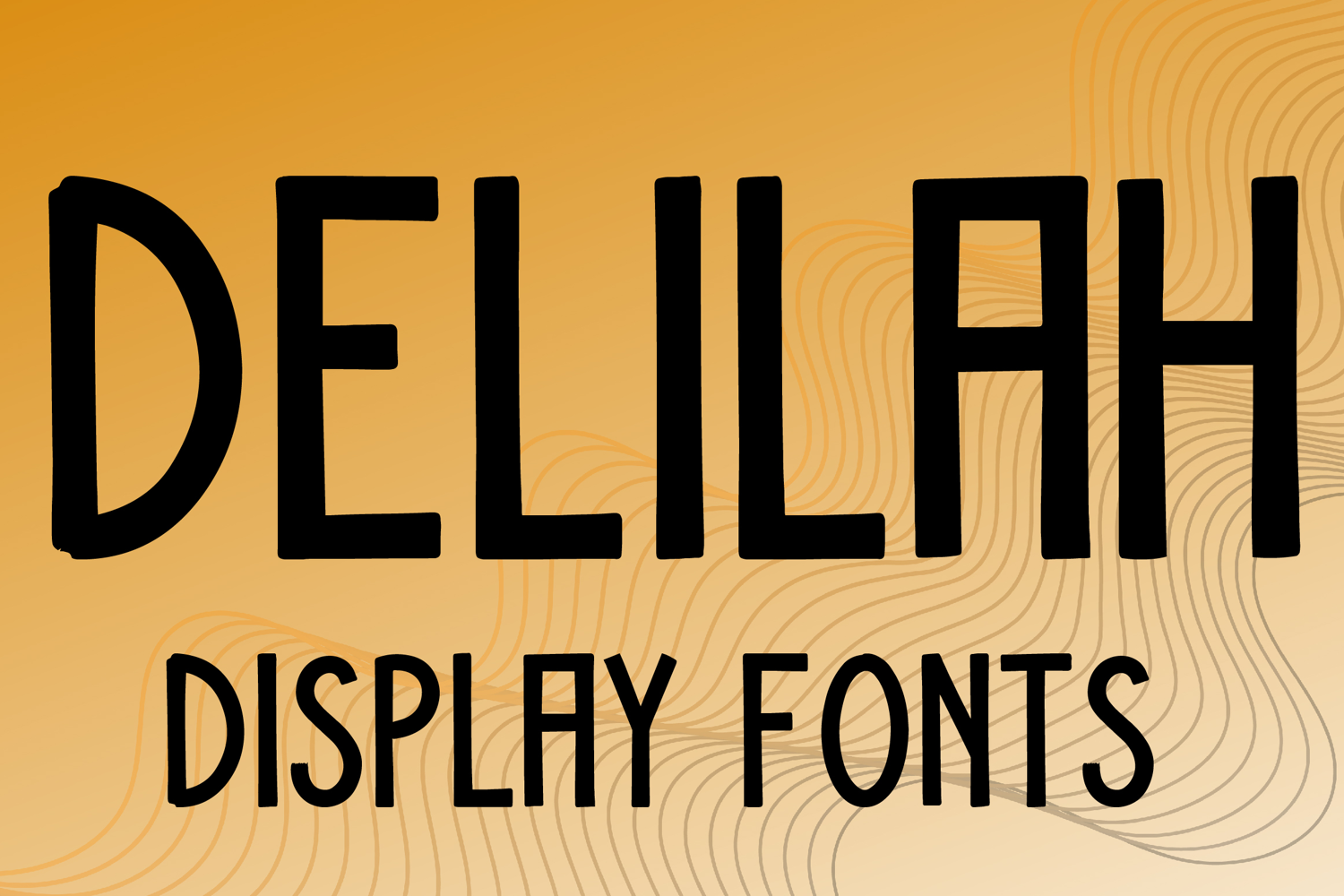
DELILAH
DELILAH is a bold display font with a tall handcrafted style and clean modern character. Its uppercase letterforms feature strong vertical strokes, slightly rounded edges, and simple structured shapes that create a stylish, confident, and eye-catching look. Designed with uppercase letters A–Z and numbers 0–9, DELILAH is perfect for branding, posters, packaging, logos, headlines, social media graphics, and creative projects that need a bold and memorable statement.